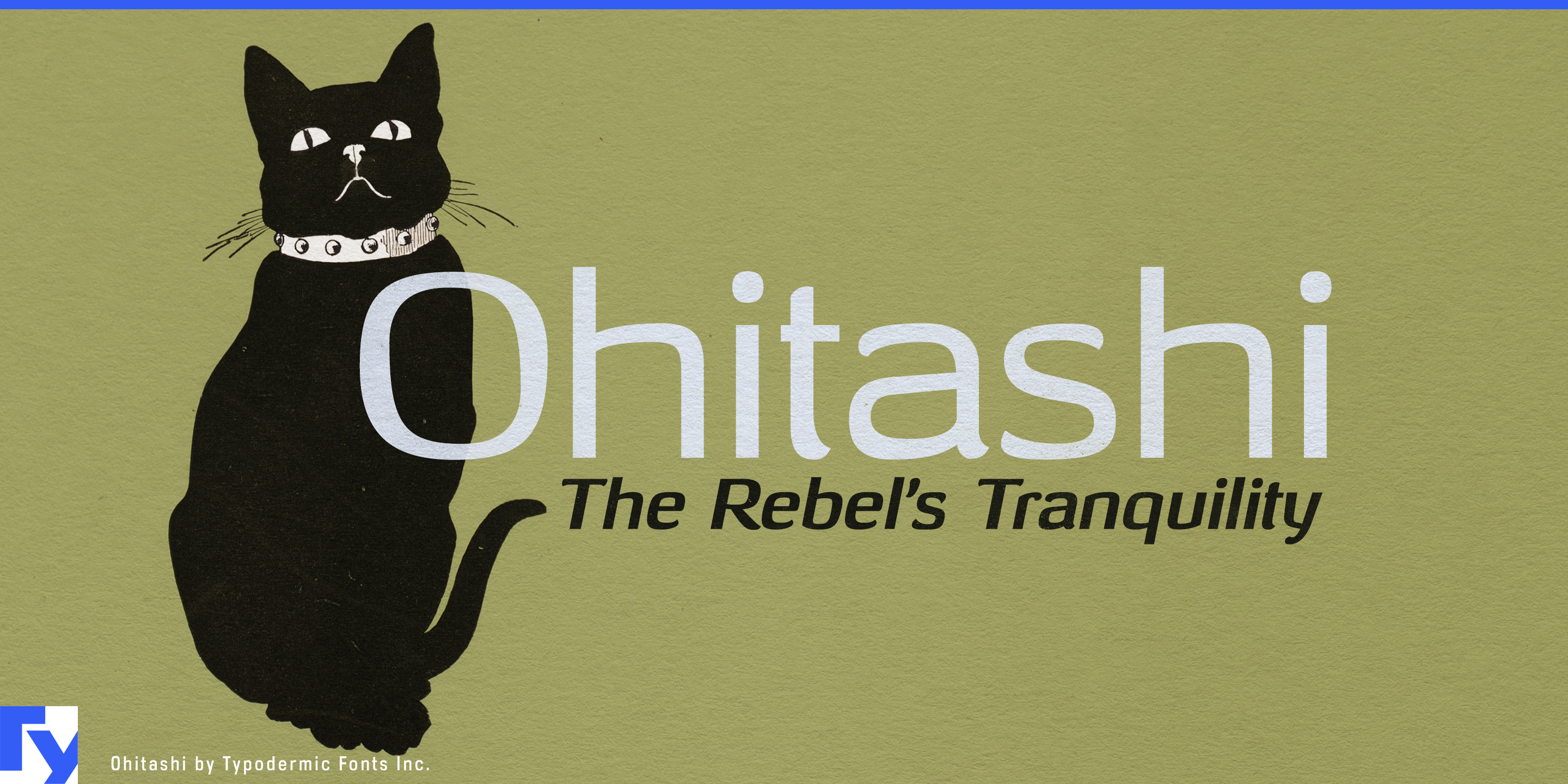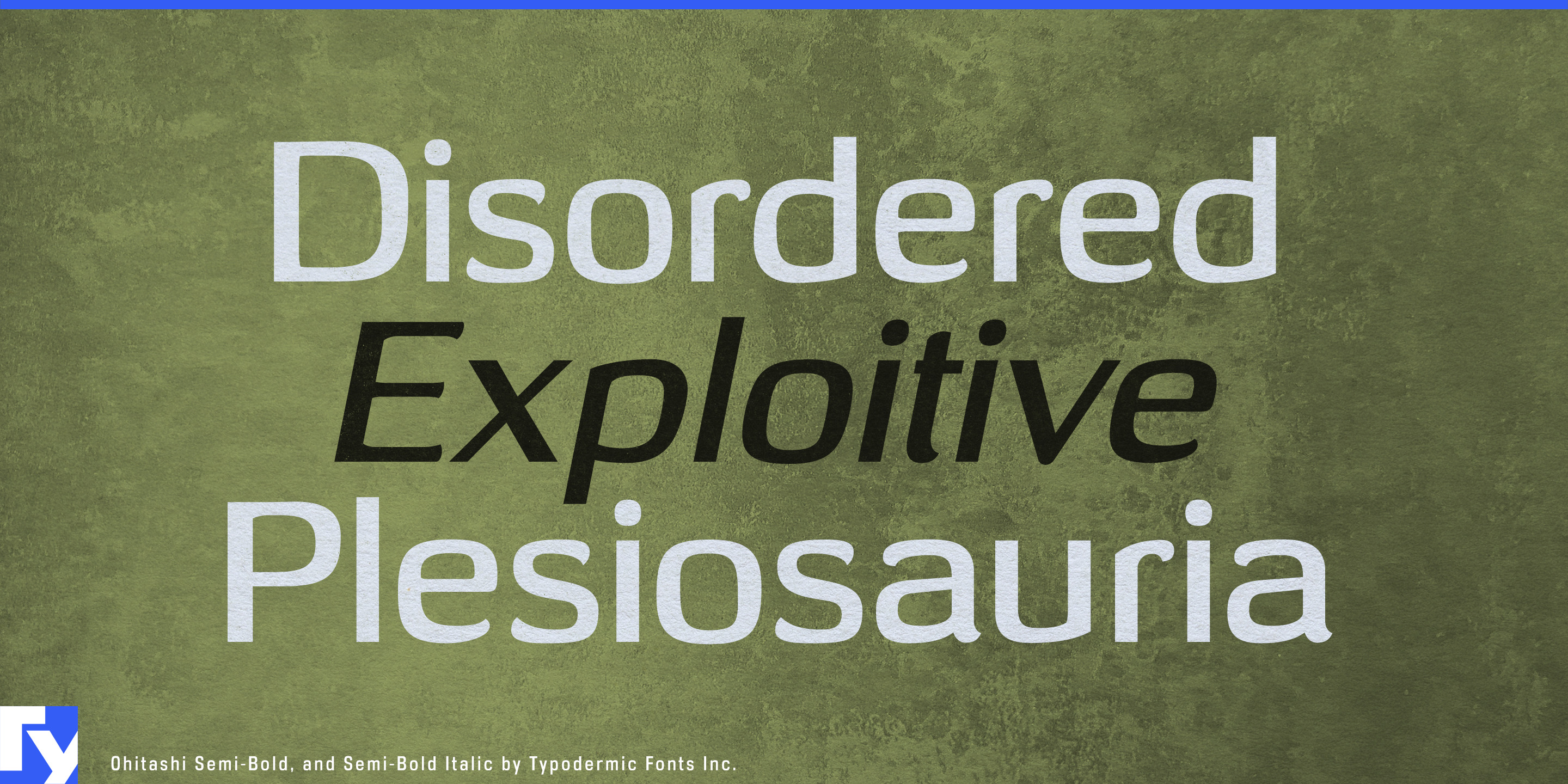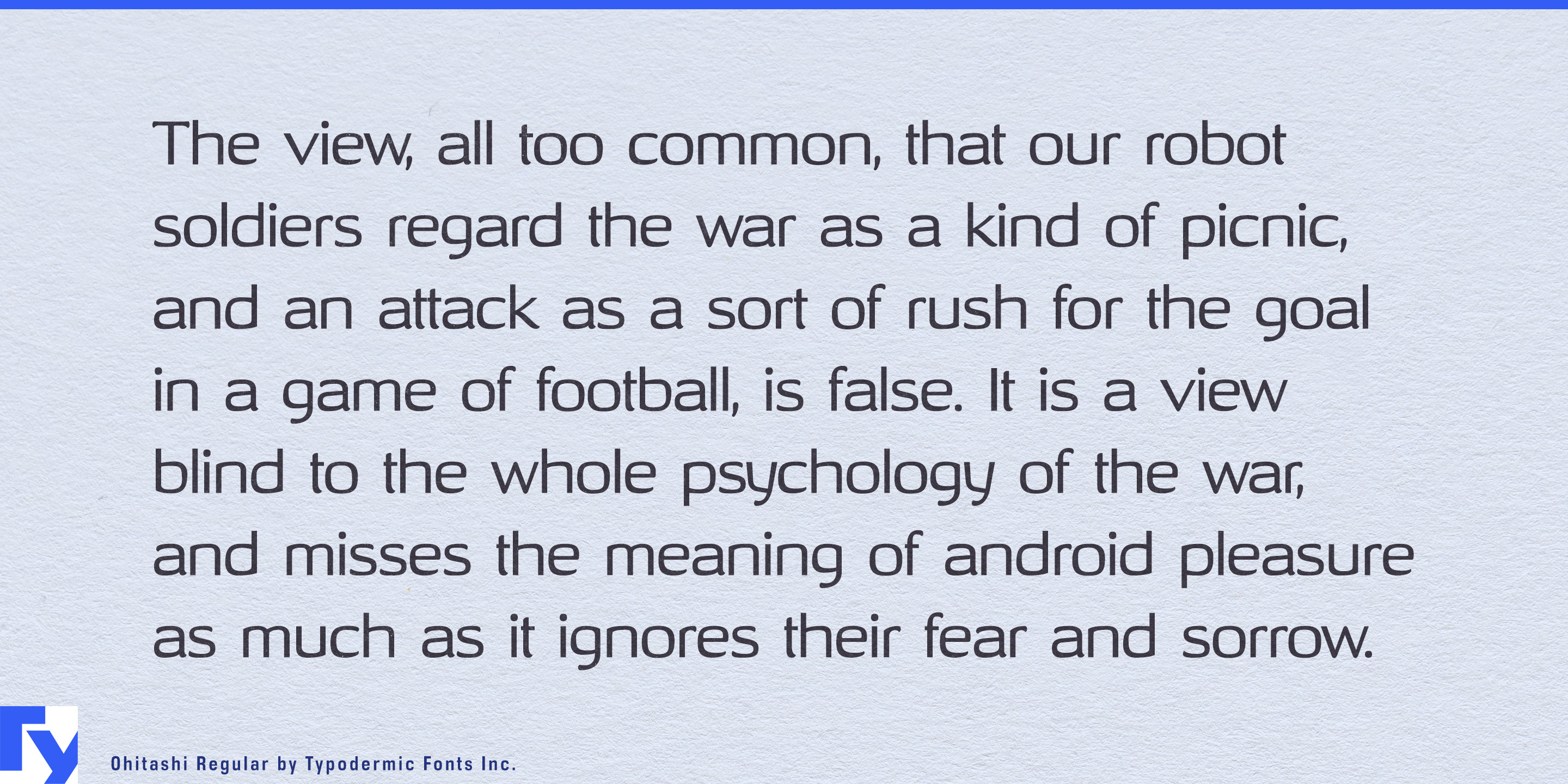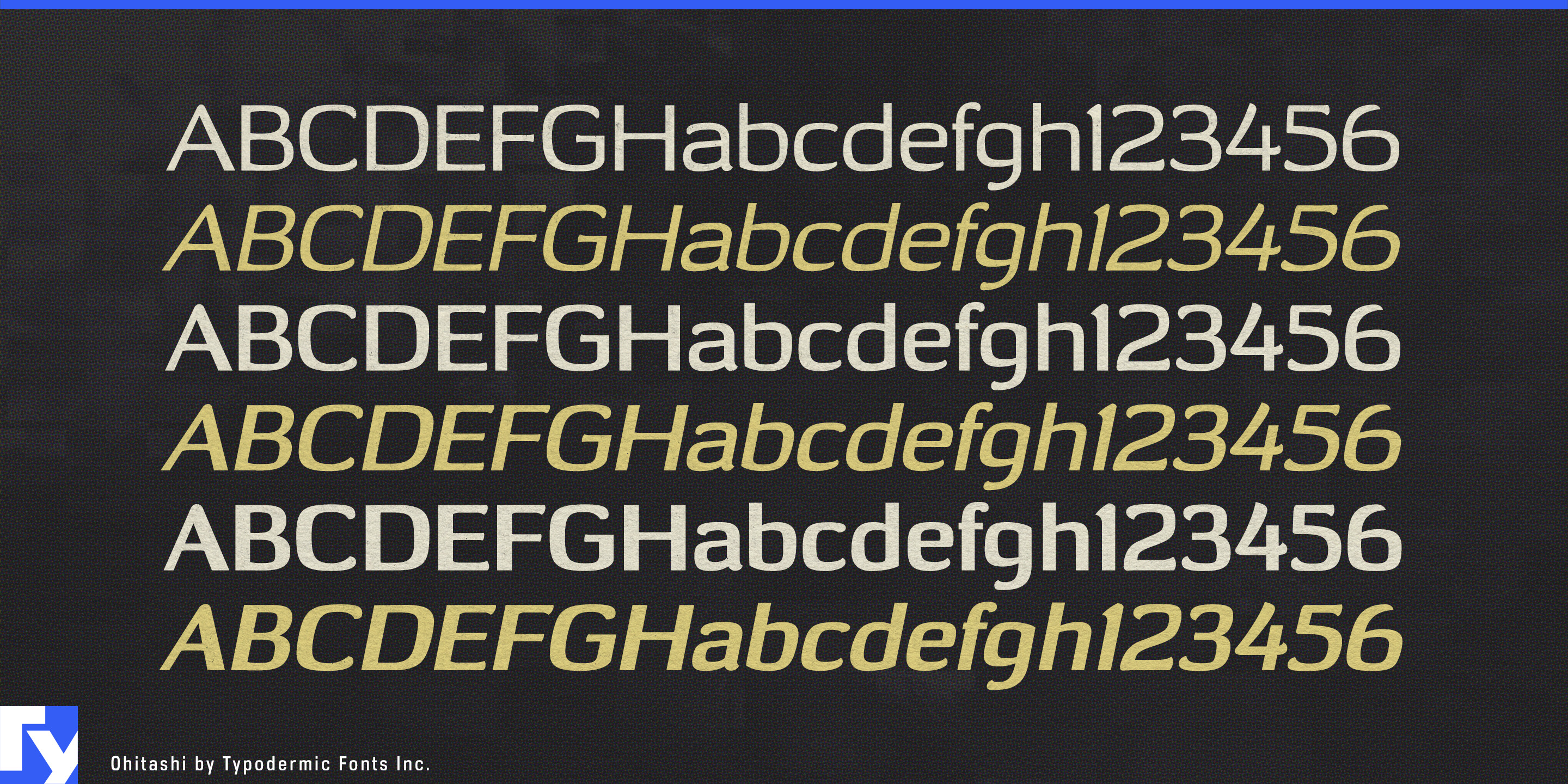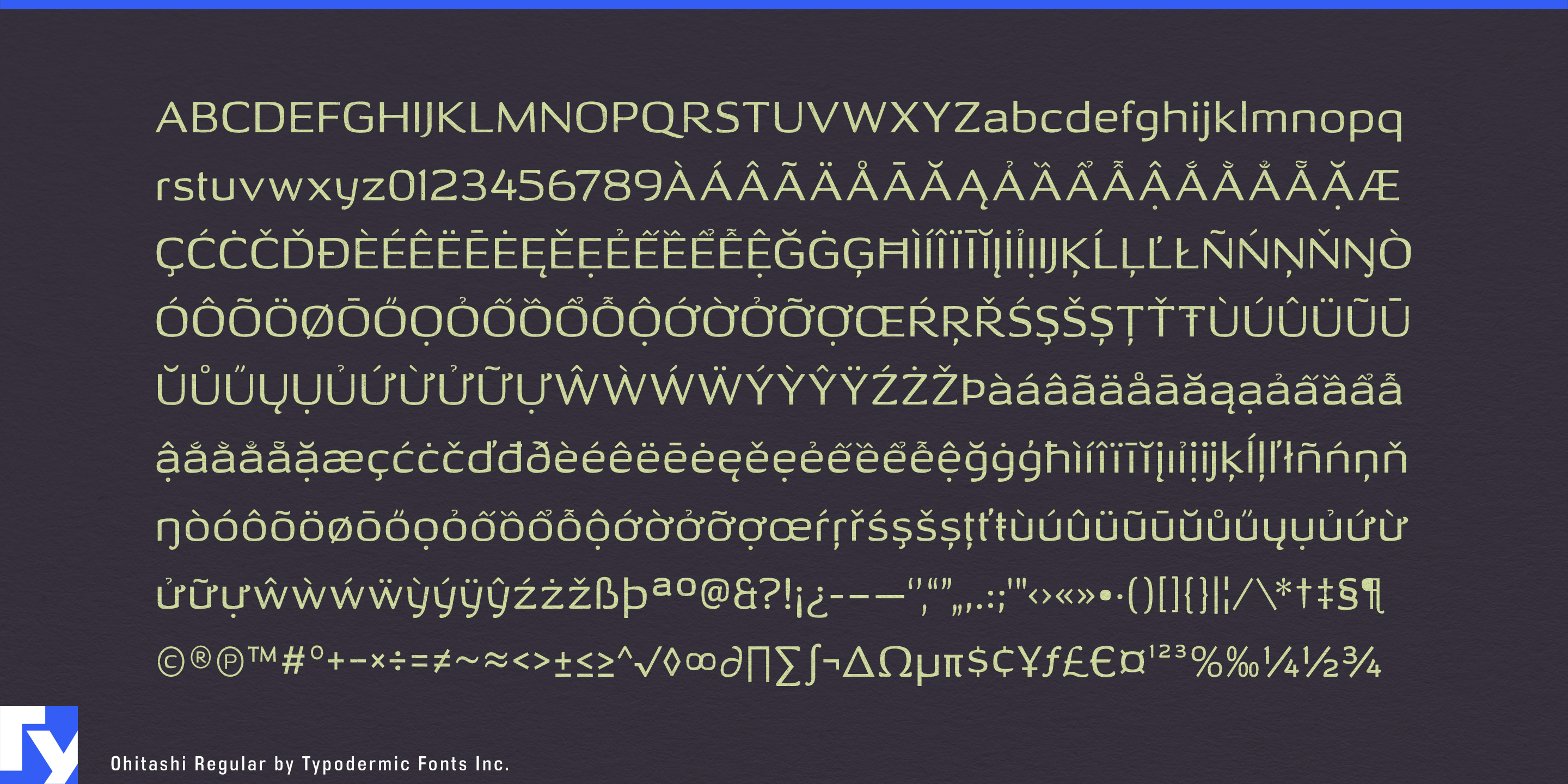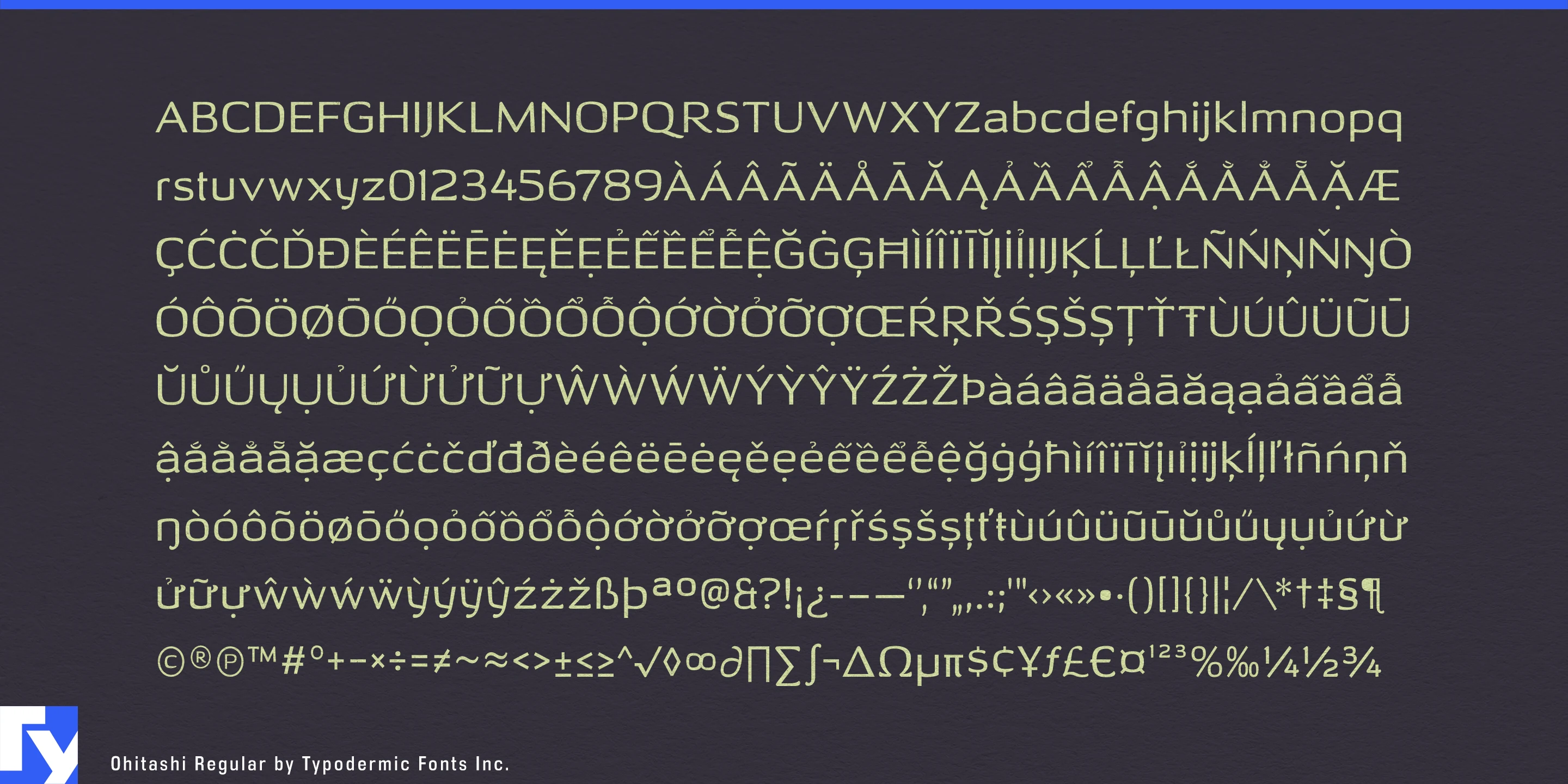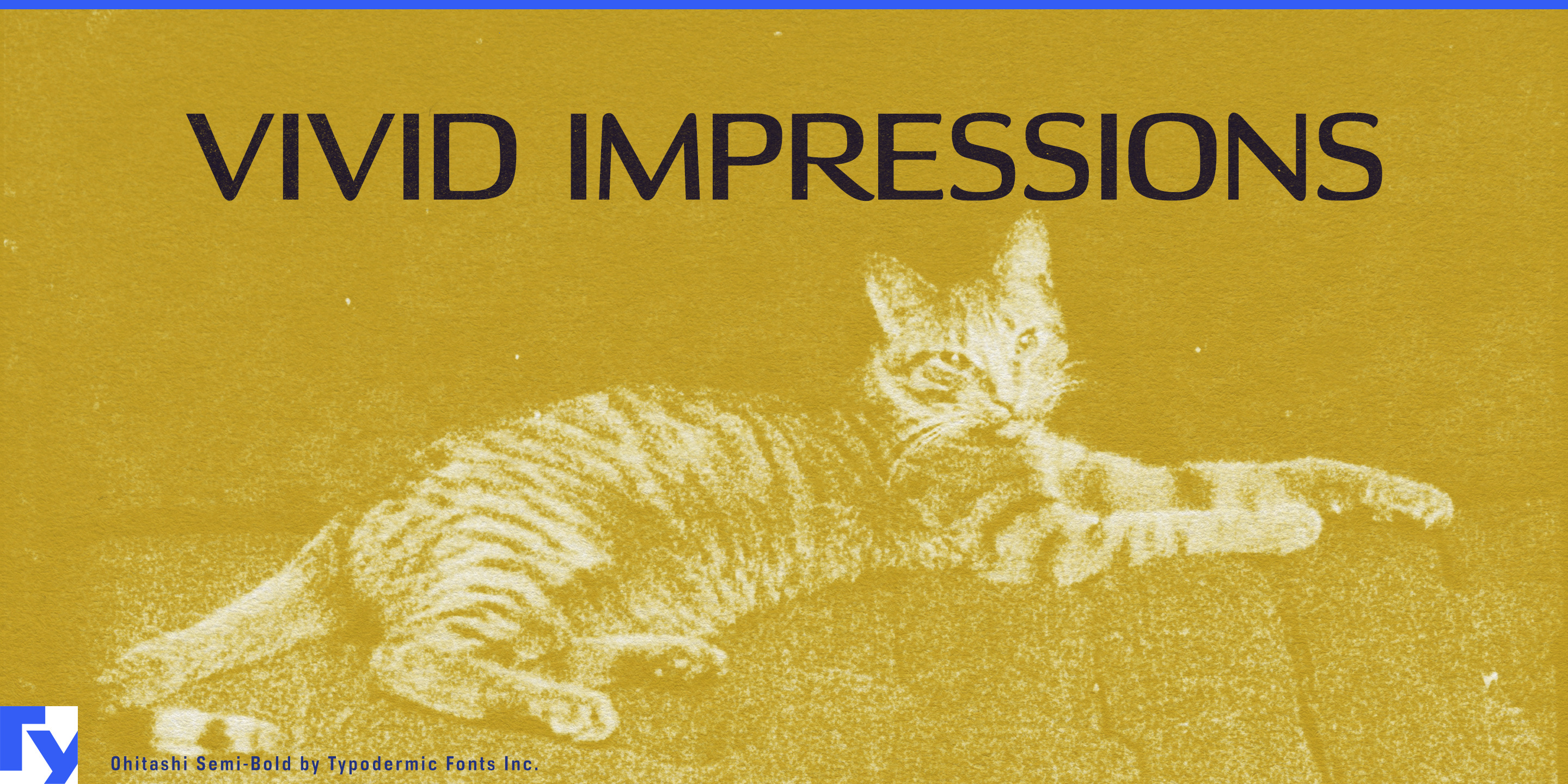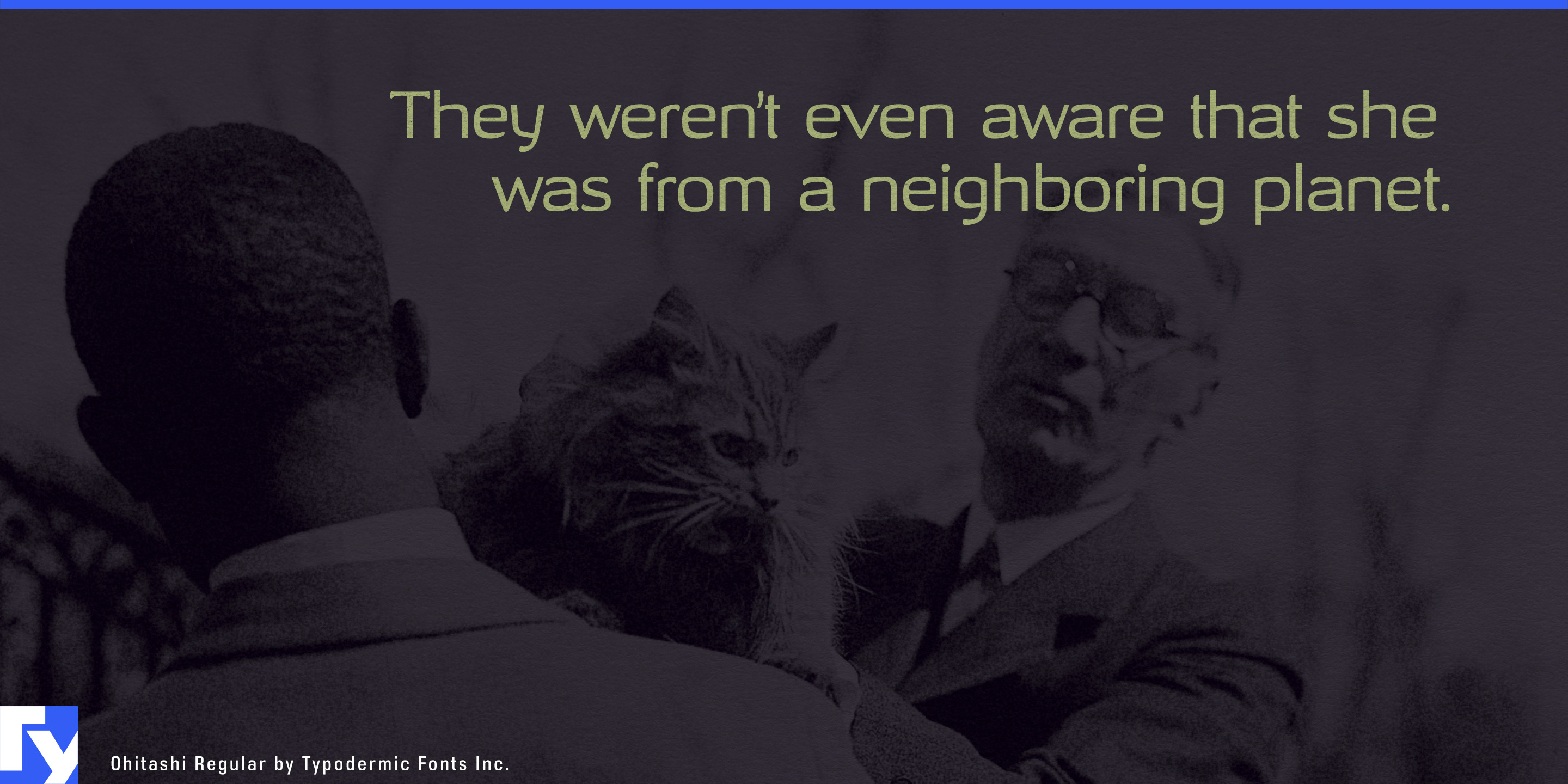
Humanistic stroke contrast combined with organic licks and curls set off by incised detail save this font from the cul de sac endorsed by reductive rivals. Three weights regular, semi-bold and bold, give Ohitashi practical range.